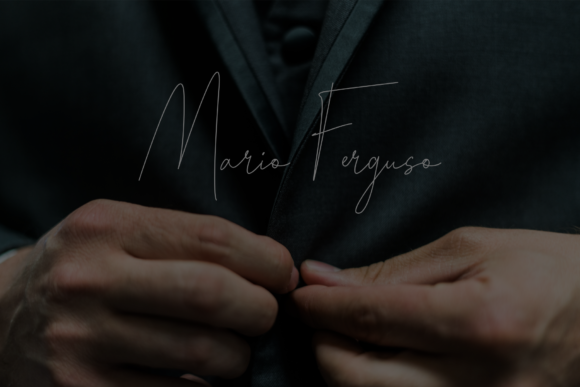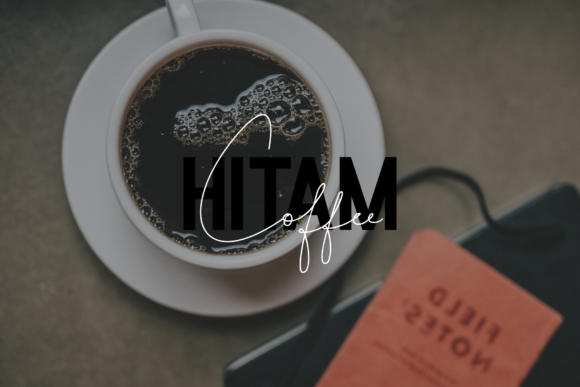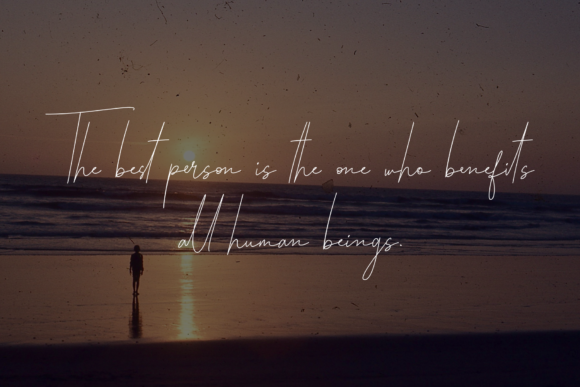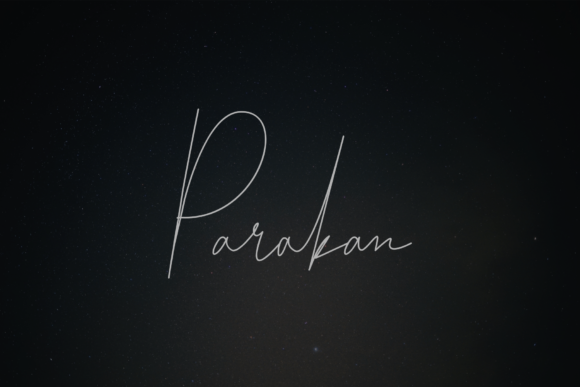
Introduction to Parakan Script Font
The Parakan is a fresh and modern signature font.
It’s handmade and will give your design an authentic and luxurious feel .